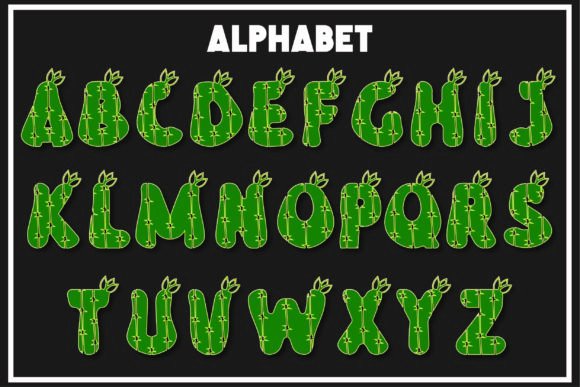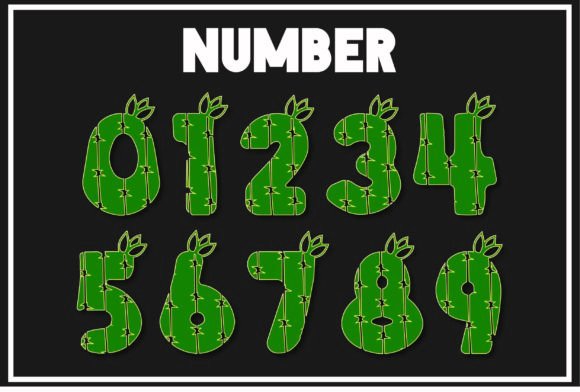
Cactus Font: Add a Touch of Whimsy to Your Designs
Are you looking for a font that can add a dash of fun and playfulness to your designs? Look no further than the Cactus Font! This decorative font is designed in a cute and fun cactus style, making it perfect for a variety of occasions and projects.
What is Cactus Font?
Cactus Font is a unique and creative font that is inspired by the prickly yet charming cactus plant. Its design is characterized by bold lines, curvaceous shapes, and a dash of whimsy, making it a standout addition to any font library.
Uses of Cactus Font
The versatility of Cactus Font makes it suitable for a wide range of projects and occasions. Here are some ideas to get you started:
- Children’s projects: Cactus Font is perfect for kids’ party invitations, coloring books, and educational materials.
- Blog posts: Add a touch of fun and personality to your blog posts with Cactus Font, making them more engaging and visually appealing.
- Logos and branding: Use Cactus Font to create a unique and memorable logo for your business or brand.
- Ads and marketing materials: Cactus Font can add a playful and eye-catching touch to your ads, flyers, and brochures.
- Invitations and greeting cards: Make your invitations and greeting cards more special with Cactus Font, perfect for birthdays, baby showers, and other celebrations.
- Planners and photo albums: Add a personal touch to your planners and photo albums with Cactus Font, making them more beautiful and unique.
- Decorations: Use Cactus Font to create fun and playful decorations for your home, office, or party.
Why Choose Cactus Font?
Cactus Font offers several benefits that make it a great addition to your font library:
- Unique and creative: Cactus Font is a one-of-a-kind font that can help your designs stand out from the crowd.
- Versatile: Its versatility makes it suitable for a wide range of projects and occasions.
- High-quality design: Cactus Font is designed with high-quality graphics, ensuring that it looks great in any design.
Tips for Using Cactus Font
Here are some tips to help you get the most out of Cactus Font:
- Pair it with other fonts: Experiment with pairing Cactus Font with other fonts to create a unique and visually appealing design.
- Use it in moderation: While Cactus Font is fun and playful, it’s best to use it in moderation to avoid overwhelming your design.
- Experiment with colors: Cactus Font looks great in a variety of colors, so don’t be afraid to experiment and find the perfect color scheme for your design.
Cactus Font is a fun and creative font that can add a touch of whimsy to your designs. Its versatility, unique design, and ease of use make it a great addition to any font library. Whether you’re a designer, crafter, or DIY enthusiast, Cactus Font is sure to inspire your creativity and enhance your designs. So why not give it a try and see the amazing results for yourself?